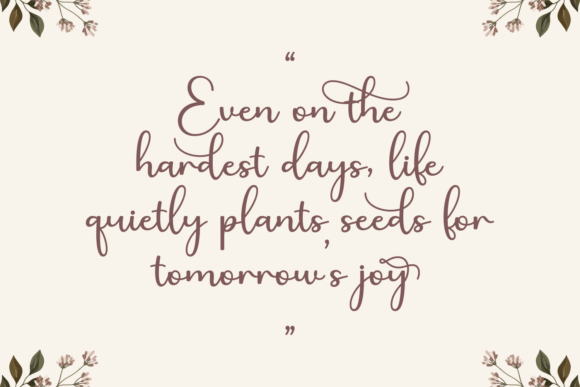
Bonalique Font: Elevate Your Design with Sophistication and Elegance
In the world of typography, fonts play a crucial role in conveying the tone and personality of a brand or design. When it comes to creating a luxurious and feminine aesthetic, Bonalique font is an excellent choice. This modern script font is designed to radiate sophistication with its graceful letterforms and ornate swashes, making it perfect for wedding invitations, luxury branding, beauty packaging, and feminine logos.
The Characteristics of Bonalique Font
Bonalique font is a masterpiece of modern typography, boasting a range of characteristics that set it apart from other fonts. Some of its key features include:
- Graceful letterforms: Bonalique font features delicate yet confident letterforms that exude elegance and sophistication.
- Ornate swashes: The font’s ornate swashes add a touch of luxury and refinement to any design.
- Flowing curves: Bonalique font’s flowing curves create a romantic and floral-inspired feel that’s perfect for feminine designs.
- Extended ligatures: The font’s beautifully extended ligatures enhance its elegance and artistry, making it ideal for high-end designs.
The Uses of Bonalique Font
Bonalique font is a versatile typeface that can be used in a variety of design applications. Some of the most popular uses of this font include:
- Wedding invitations: Bonalique font’s elegant and sophisticated design makes it perfect for wedding invitations, adding a touch of luxury and romance to the occasion.
- Luxury branding: The font’s high-end aesthetic makes it an excellent choice for luxury brands looking to create a sophisticated and refined image.
- Beauty packaging: Bonalique font’s feminine and elegant design makes it ideal for beauty packaging, particularly for high-end skincare and cosmetics brands.
- Feminine logos: The font’s delicate yet confident letterforms make it perfect for feminine logos, adding a touch of elegance and sophistication to any brand.
The Benefits of Using Bonalique Font
Using Bonalique font in your design projects offers a range of benefits, including:
- Enhanced elegance: Bonalique font adds a touch of luxury and sophistication to any design, elevating its elegance and refinement.
- Improved brand image: The font’s high-end aesthetic helps to create a positive and refined brand image, perfect for luxury brands and high-end designs.
- Increased versatility: Bonalique font’s versatility makes it suitable for a range of design applications, from wedding invitations to luxury branding.
- Unique and distinctive: The font’s unique and distinctive design sets it apart from other fonts, making it an excellent choice for designers looking to create a memorable and lasting impression.
Tips for Using Bonalique Font Effectively
To get the most out of Bonalique font, here are some tips for using it effectively:
- Use it sparingly: Bonalique font’s elegance and sophistication can be overwhelming if used excessively. Use it sparingly to create a lasting impression.
- Pair it with neutral fonts: Pair Bonalique font with neutral fonts to create a balanced and harmonious design.
- Experiment with swashes: The font’s ornate swashes can add a touch of luxury and refinement to any design. Experiment with different swash styles to find the one that works best for your design.
- Pay attention to spacing: Bonalique font’s flowing curves and extended ligatures require careful attention to spacing. Make sure to adjust the spacing to create a clean and elegant design.
In conclusion, Bonalique font is a modern script font that radiates sophistication and elegance with its graceful letterforms and ornate swashes. Its delicate yet confident design makes it perfect for wedding invitations, luxury branding, beauty packaging, and feminine logos. With its flowing curves and beautifully extended ligatures, Bonalique font adds a romantic and floral-inspired feel to any design, enhancing its artistry and warmth. By using Bonalique font effectively, designers can create stunning and memorable designs that leave a lasting impression.
FAQs About Bonalique Font
- What is Bonalique font? Bonalique font is a modern script font designed to radiate sophistication and elegance with its graceful letterforms and ornate swashes.
- What is Bonalique font used for? Bonalique font is perfect for wedding invitations, luxury branding, beauty packaging, and feminine logos.
- What are the key features of Bonalique font? Bonalique font features graceful letterforms, ornate swashes, flowing curves, and beautifully extended ligatures.
- How do I use Bonalique font effectively? Use Bonalique font sparingly, pair it with neutral fonts, experiment with swashes, and pay attention to spacing to create a clean and elegant design.